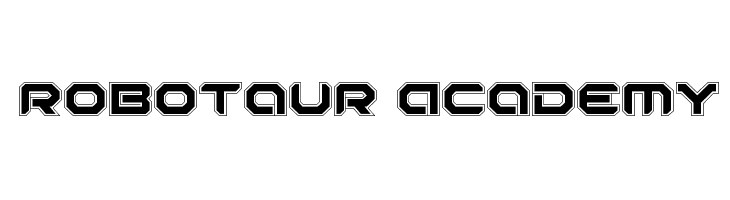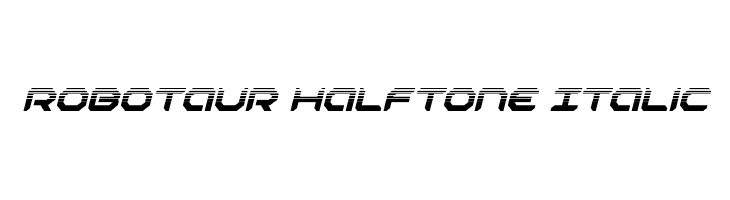
A bold, futuristic font with geometric shapes and sharp angles.
A futuristic, angular italic font with a bold, dynamic style.
A bold, geometric font with a futuristic, robotic aesthetic.
A bold, italicized font with a futuristic and dynamic style.
A bold, geometric font with a futuristic, robotic style.
A futuristic, geometric font with angular lines and a robotic feel.
A modern, geometric sans-serif font with clean lines and a minimalist style.
A futuristic, geometric font with a digital, robotic style.
A bold, futuristic font with angular, geometric letterforms.
A bold, futuristic font with geometric shapes and sharp angles.